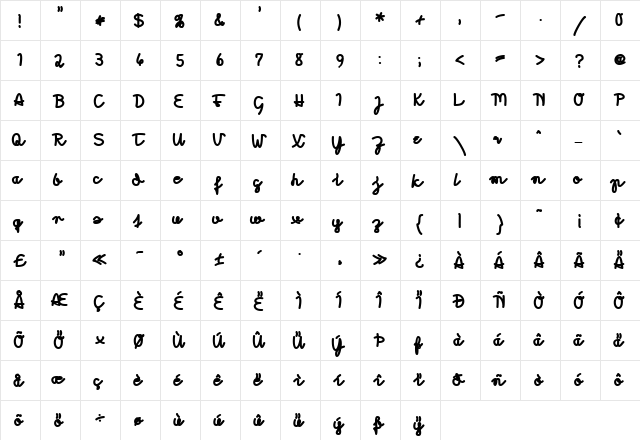
Morado Marker Regular Font Preview
Morado Marker Regular
Morado Marker Regular Font Details
| Foundry | Peter Wiegel |
| Designer | Peter Wiegel |
Design Context for Morado Marker Typeface
Morado Marker is a composed and adaptable typeface that performs quietly and consistently across a wide range of design contexts.
Pro Tip: Use Morado Marker in both headline and body roles to test its range before committing to a single application.